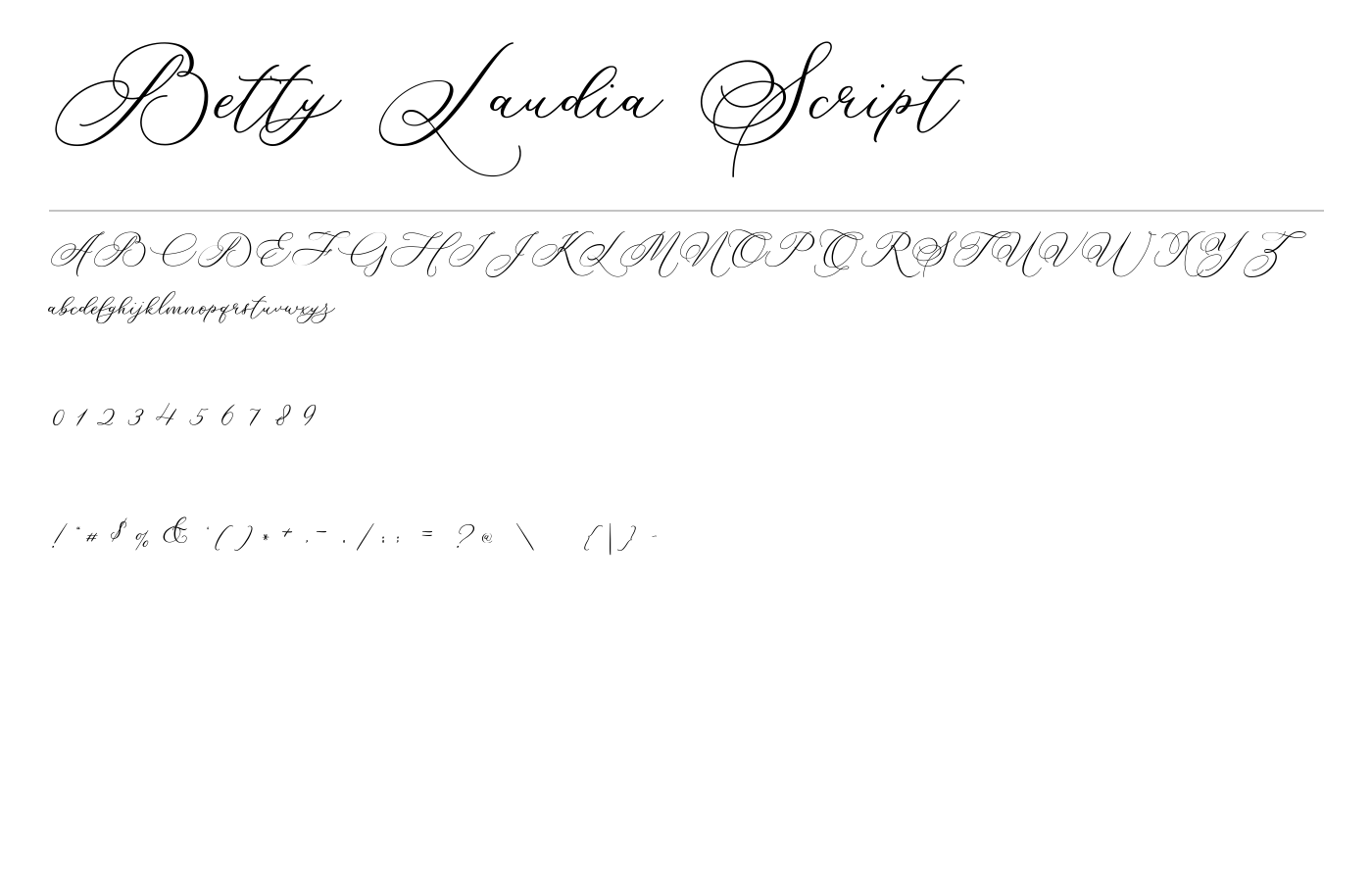
Betty Laudia Script is an elegant, delicate script font characterized by its fine, flowing lines and ornate swashes that create a sophisticated and graceful appearance. Its light weight and high contrast strokes lend a refined, luxurious feel, making it ideal for wedding invitations, high-end branding, and feminine editorial designs. This font shines in decorative headlines and logos where a touch of elegance and classic charm is desired.
Betty Laudia Script Font
About Betty Laudia Script Font